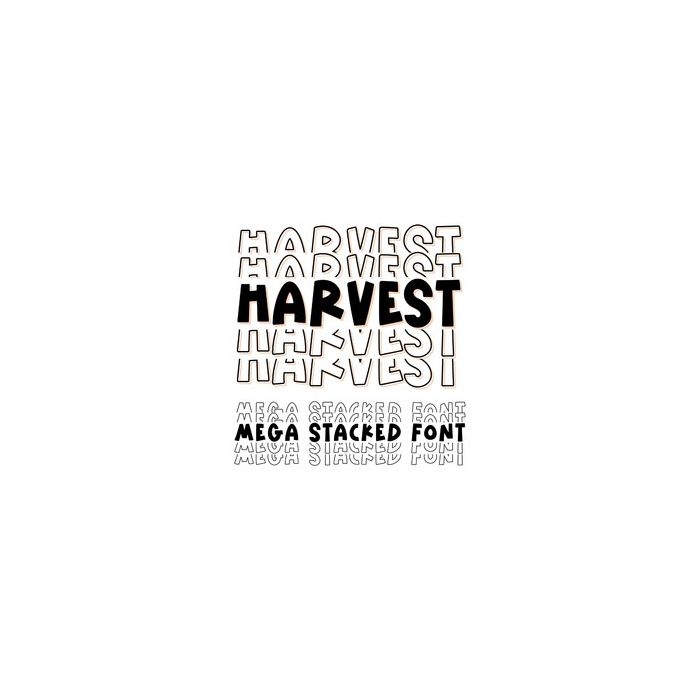
BFC Harvest Mega Stacked Chunky Playful Retro Font
Harvest Mega Stacked is a cute and chunky mega-stacked font! This stacked font was made out of our font "Chestnut Season".